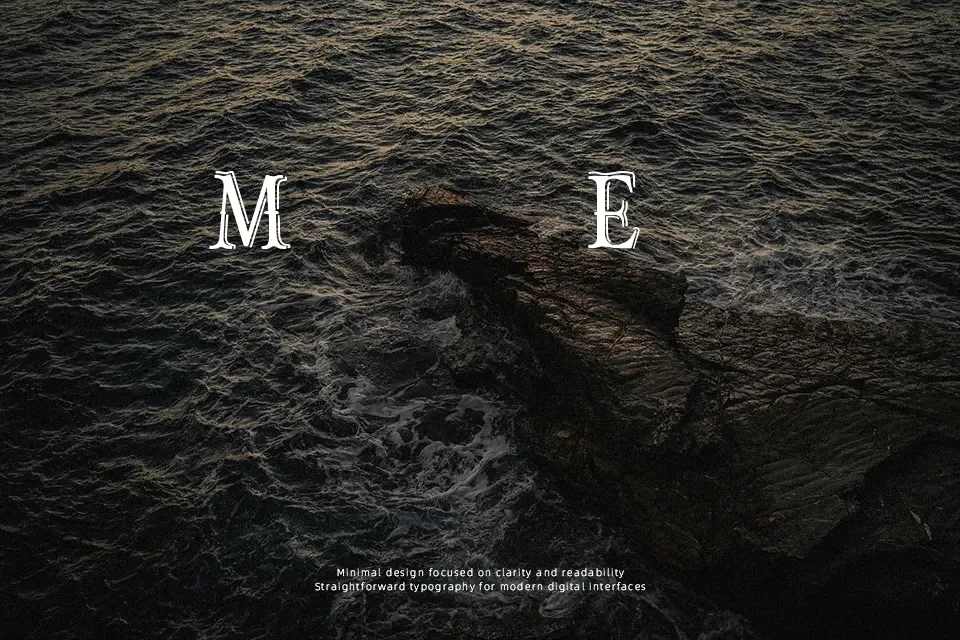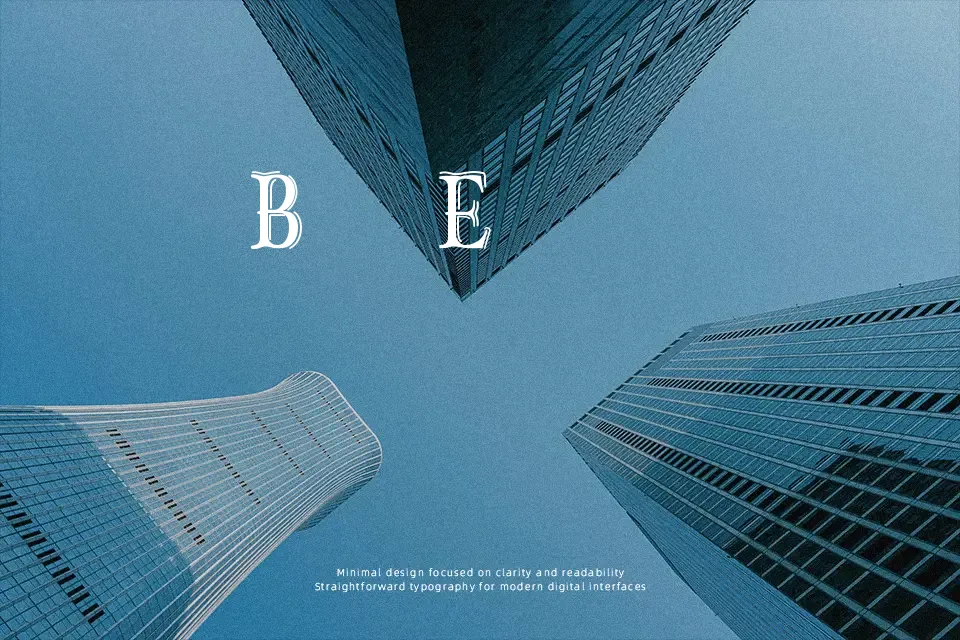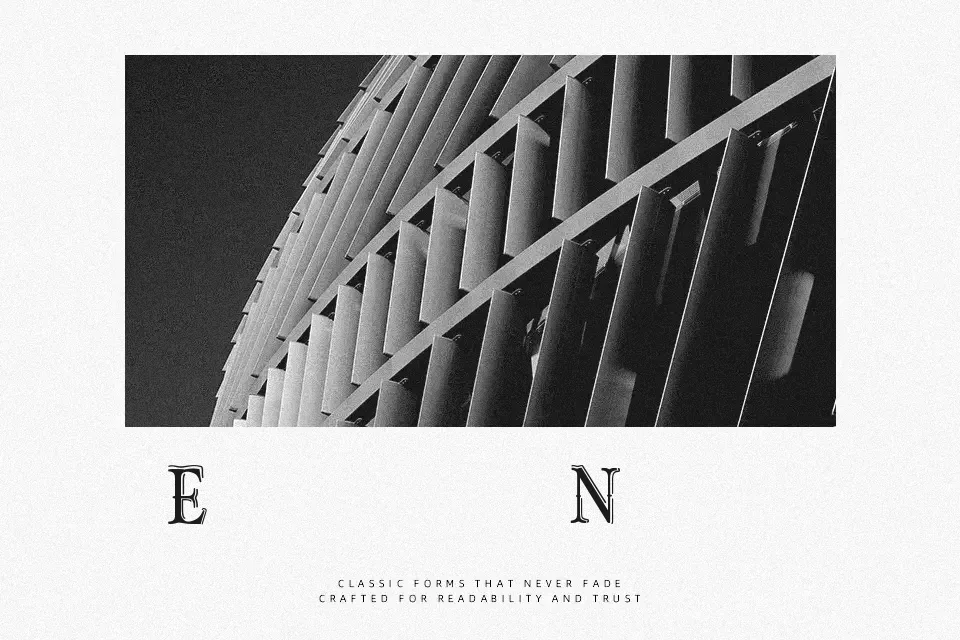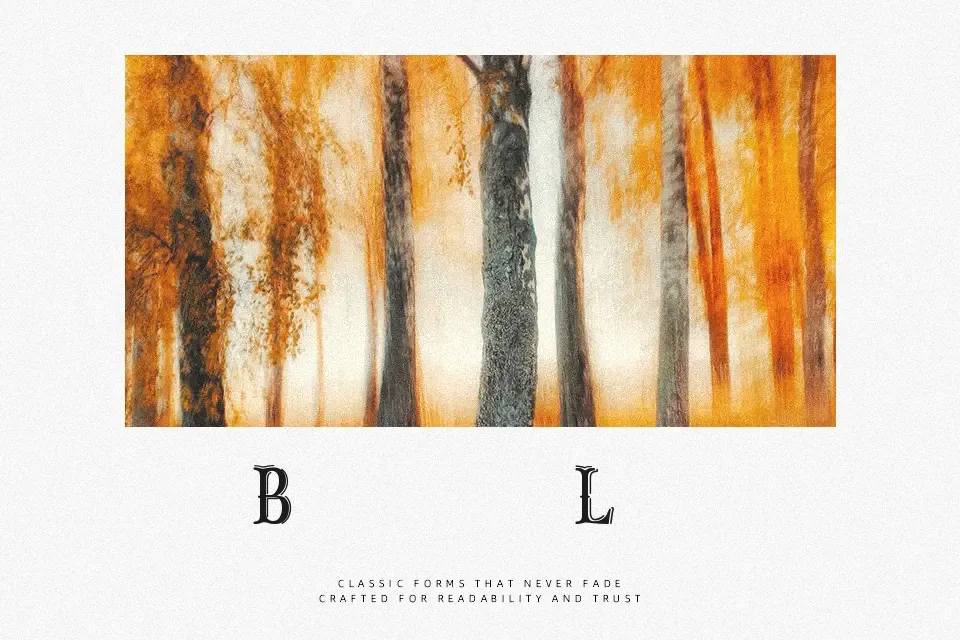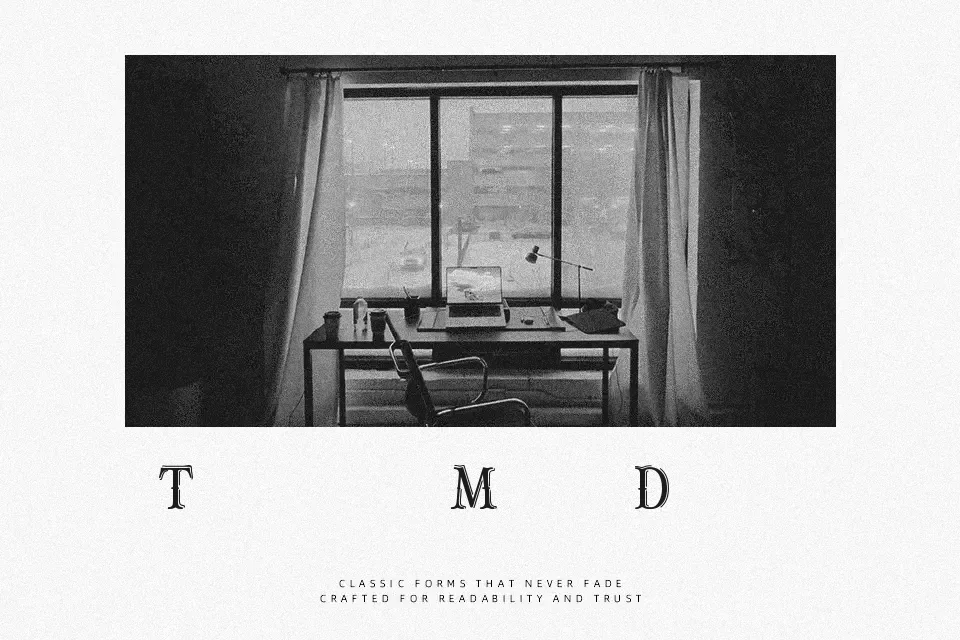
Old Bob Junior Font
Old Bob Junior Font works best as a large display face, where its heavy serif shapes and broad proportions can establish a clear western character. The letterforms have substantial strokes, decorative contours, and a compact visual rhythm that gives short words a firm, sign-like appearance. Spacing appears most effective in headlines, labels, and title treatments rather than continuous copy. Its strong shapes help short messages remain noticeable from a distance, particularly in poster layouts. However, the detailed forms and weight make the typeface less comfortable for small text or long reading passages.
Best For: western poster titles,rustic product labels,restaurant signage,apparel graphics
Perfect for headline, packaging, and poster, with a bold and decorative style.